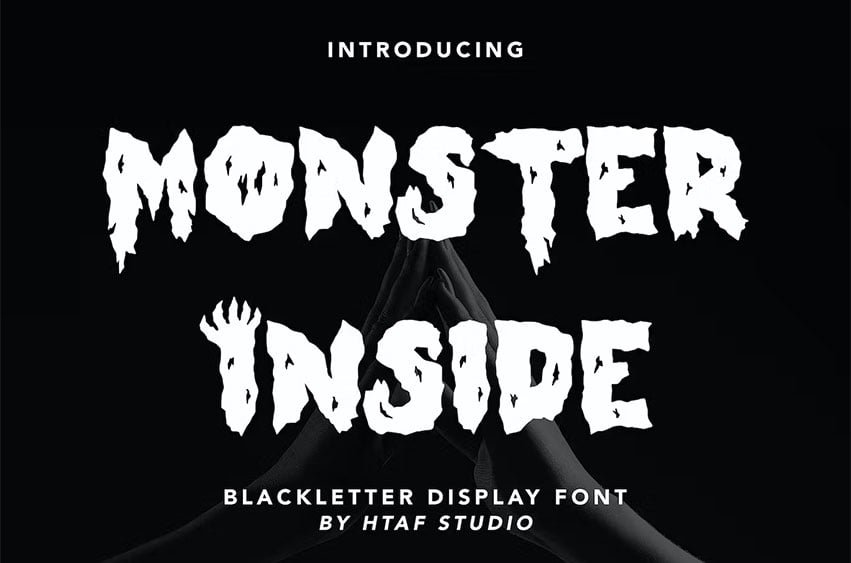
Monster Inside Font Is a blackletter typeface font that is inspired by gothic and horror style because it’s shape is very unique and is perfect for any project that you will use with this theme.
Monster Inside Font Preview